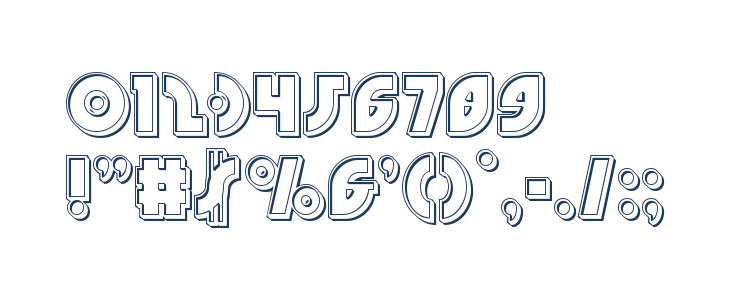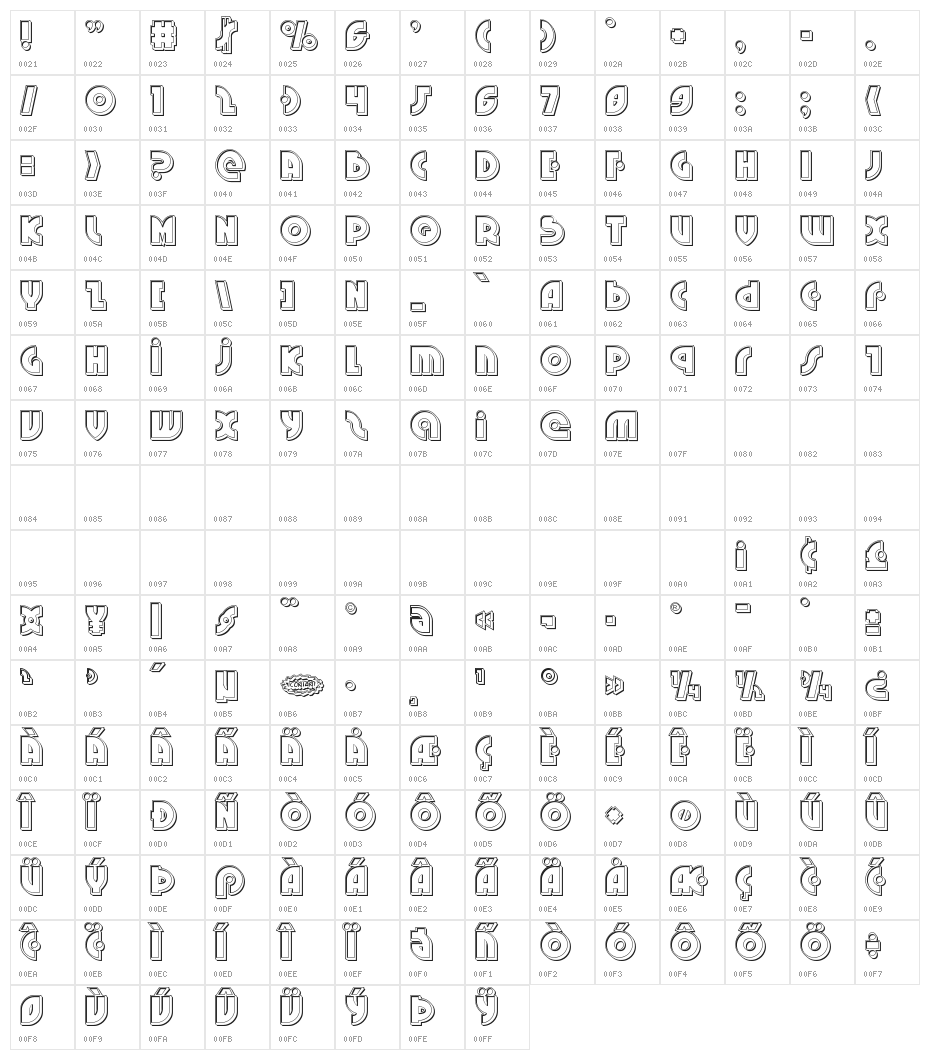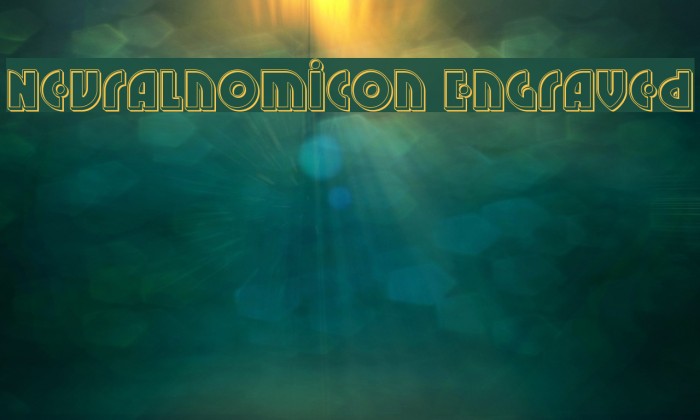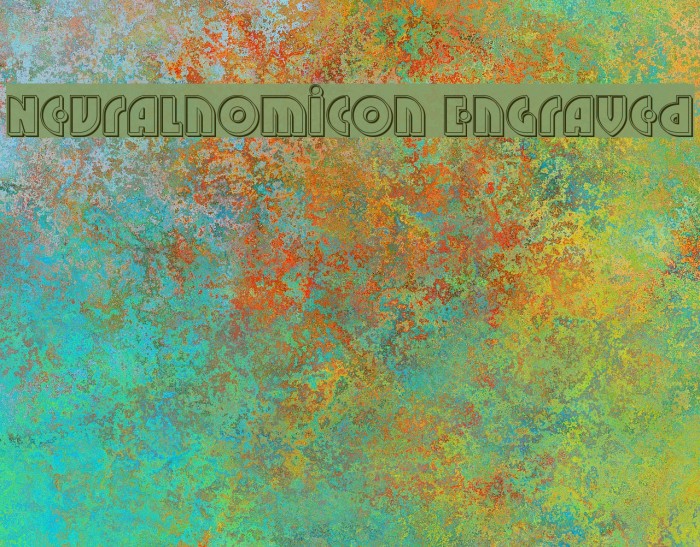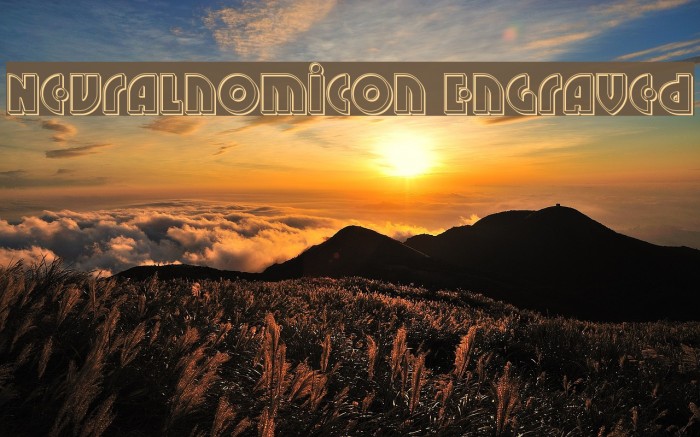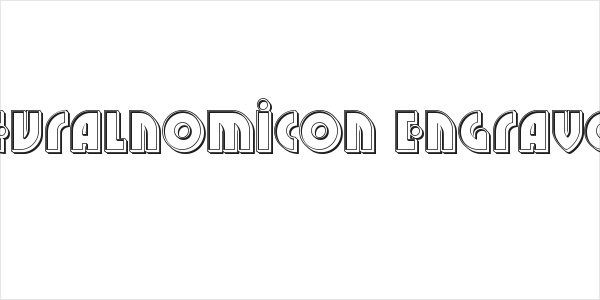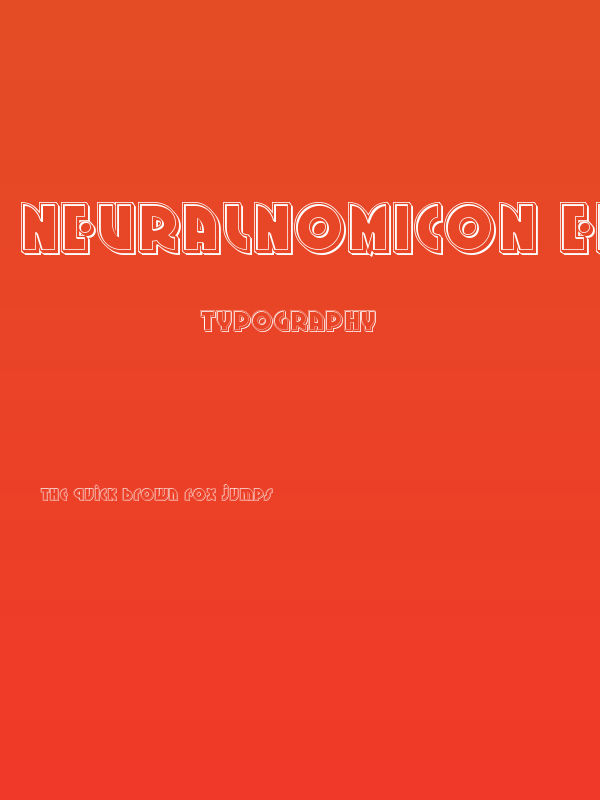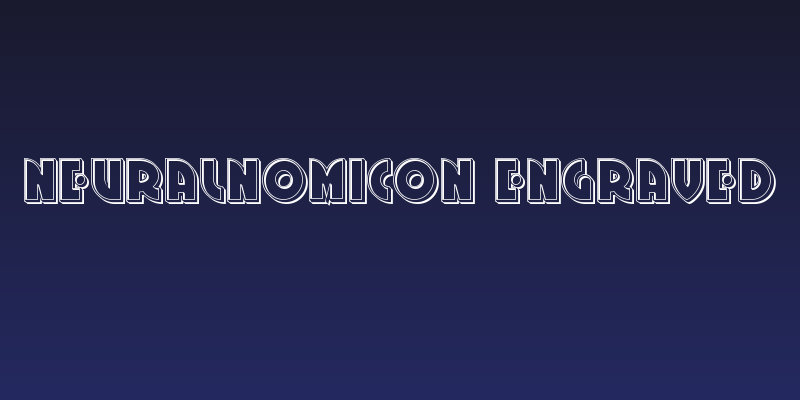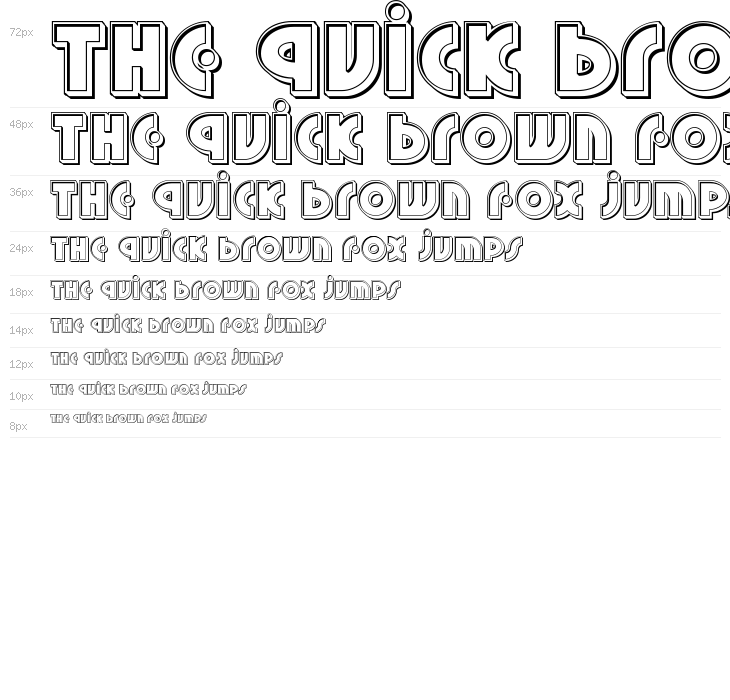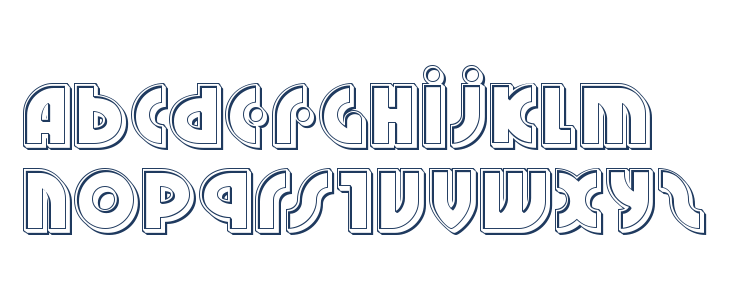
Neuralnomicon Engraved Font
Neuralnomicon Engraved Description
This font features a bold, engraved style with a futuristic and geometric aesthetic. Each character is outlined with a double line, creating a three-dimensional effect that adds depth and intrigue. The uppercase and lowercase letters maintain a consistent design, with rounded edges and unique cutouts that give them a distinctive appearance. Numbers and special characters follow the same stylistic approach, ensuring uniformity across all glyphs. The font's design is both modern and decorative, making it suitable for eye-catching displays.